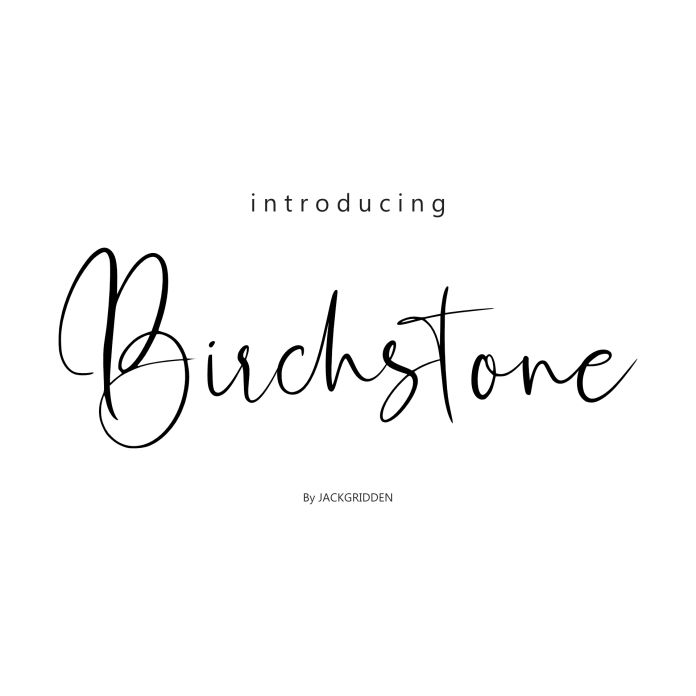
Birchstone is a beautifully crafted serif font that exudes elegance and timeless charm. Combining the imagery of birch trees, which shed their leaves in November, and the softness of blossoms.
Inspired by the delicate beauty of nature, particularly the soft, blooming petals of birch trees, this typeface combines organic fluidity with a sophisticated structure. The slender serifs and gentle curves give it a refined, yet approachable quality, making it perfect for projects that demand a touch of grace and style.
Whether you’re designing invitations, branding, editorial layouts, or any project that calls for both beauty and readability, Birchstone brings a sense of freshness and elegance. Its balanced proportions and slightly vintage feel evoke a sense of nature and growth, making it equally suitable for modern, whimsical designs and more classic, refined aesthetics.